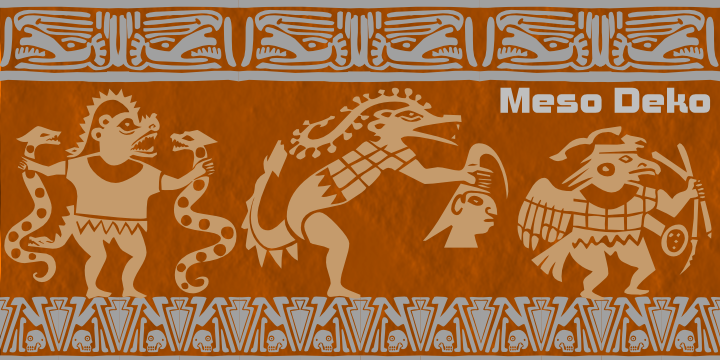
The Meso Deko Font is perfect for various design applications including Art Deco revival branding, vintage luxury hotel graphics, 1920s themed events, gatsby-style wedding invitations, retro cocktail bar signage, classic architecture firm logos, antique jewelry packaging, and nostalgic entertainment venues. This sophisticated typeface works exceptionally well for brands celebrating geometric elegance and projects requiring timeless Art Deco sophistication.
What makes Meso Deko Font exciting is its geometric and ornamental character that instantly transports viewers to the glamorous era of Art Deco design and Jazz Age elegance. The font features structured letterforms with decorative precision and architectural aesthetics that evoke feelings of luxury, sophistication, and timeless glamour. Its ornate styling and geometric appearance make it perfect for brands that want to embody classic elegance and connect with audiences who appreciate artistic heritage and refined design.
The Meso Deko Font family includes multiple weights and styles, offering designers flexibility for diverse Art Deco applications. The family typically consists of regular, bold, light, and ornamental variations, along with geometric decorative elements and period-appropriate flourishes, providing comprehensive coverage for projects that need both historical authenticity and visual impact across different vintage contexts.
Whether you're working on luxury hospitality branding, vintage event planning, or heritage-inspired campaigns, Meso Deko Font Free Download delivers the ornamental quality and visual sophistication that modern vintage designers desire. The font's Art Deco-inspired design combined with its excellent readability makes it an essential tool for creating compelling visual communications that celebrate geometric beauty and bring the golden age of design back to life.